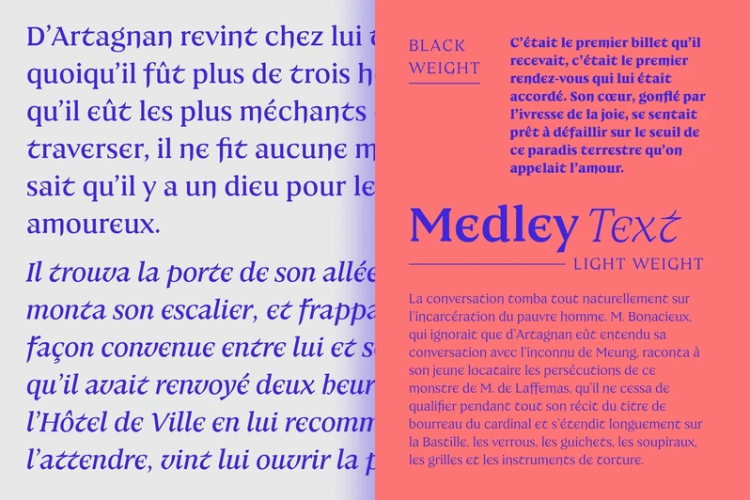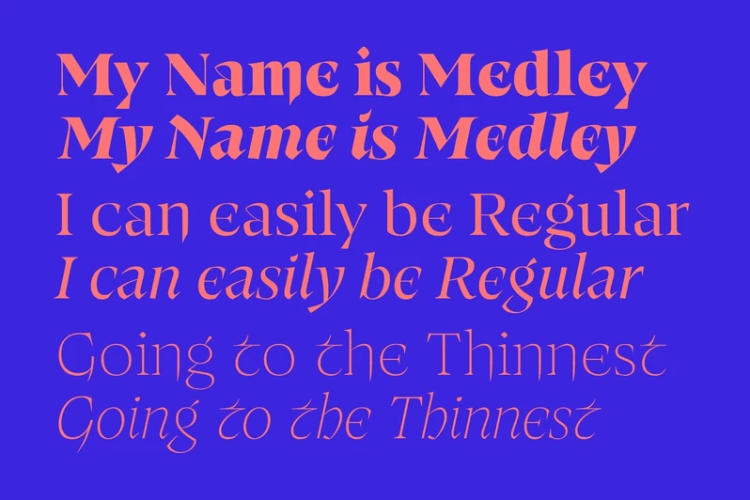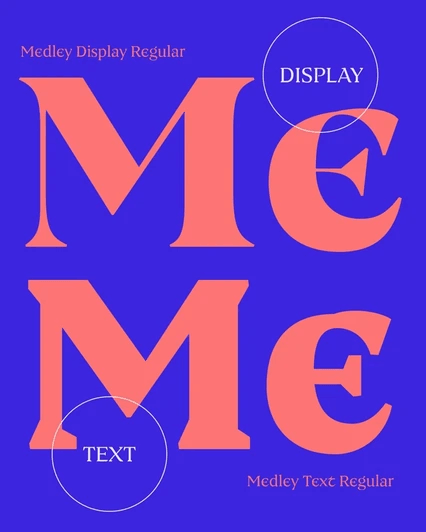
Medley Font Family
The Medley adventure started during an exploration of the Toulouse Scriptorium online archives. One piece struck us for its elegant, almost decorative, strokes. However, the typeface then became a true ‘medley’, drawing influence from uncial, Carolingian minuscule, and a more traditional approach of brush lettering.
Medley Font Family is a Serif Fonts font that brings a professional and versatile look to your projects. The Medley adventure started during an exploration of the Toulouse Scriptorium online archives.